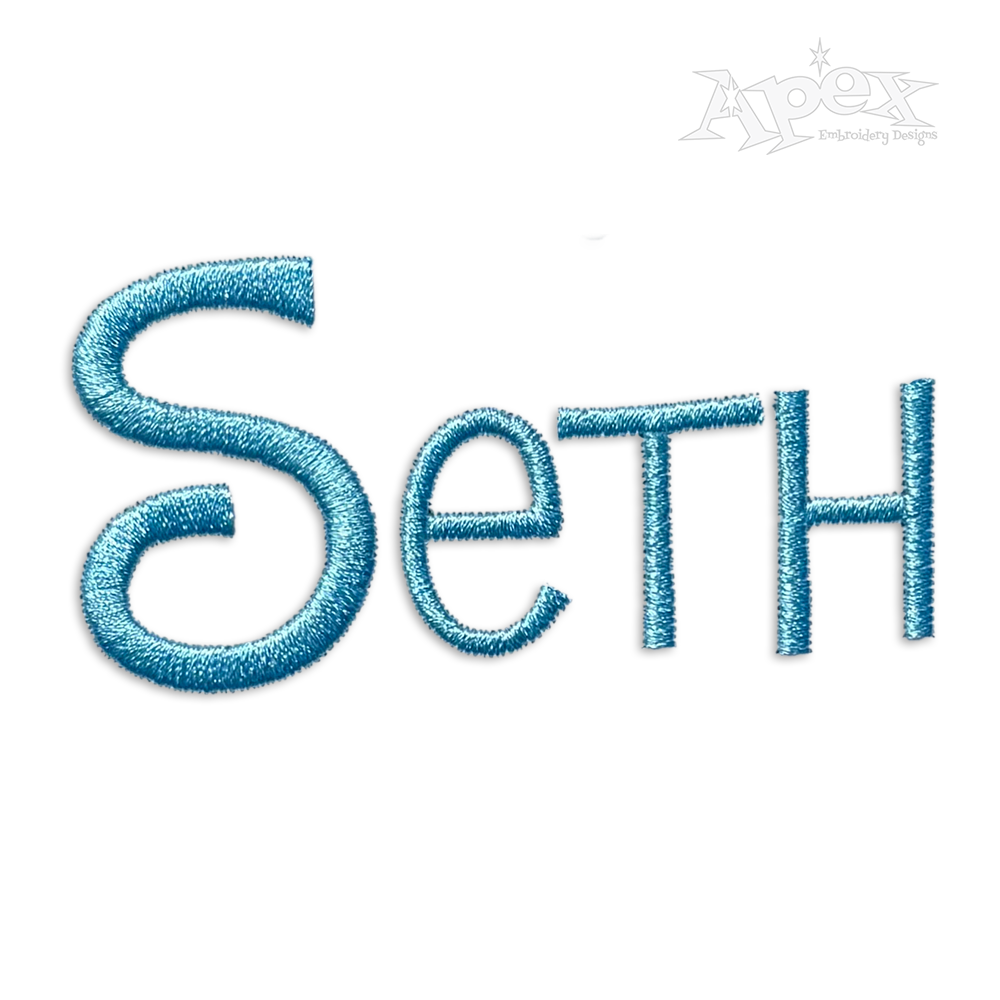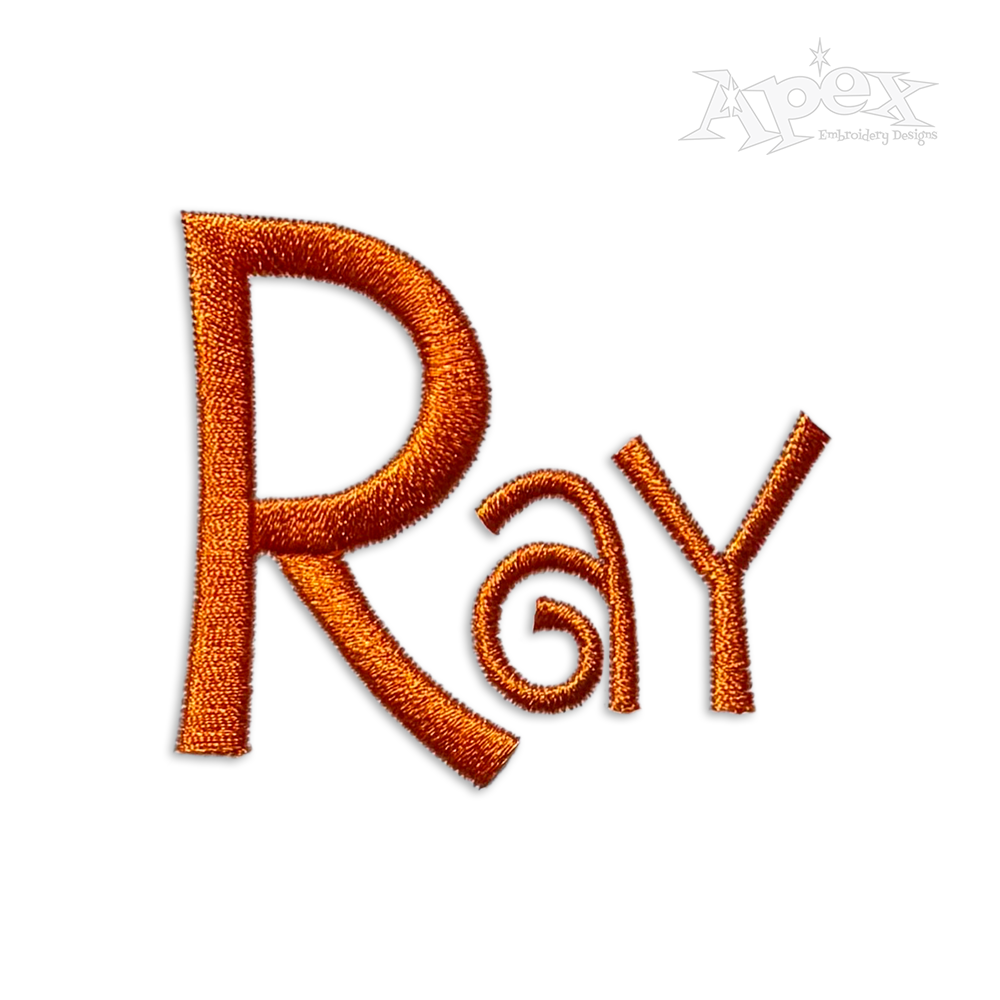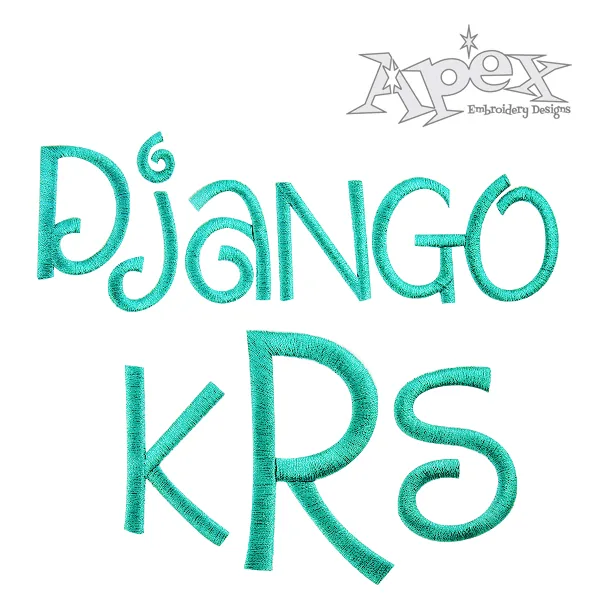
Django Embroidery Font
There is an unapologetic swagger and rhythmic grace woven into the heart of the Django Embroidery Font. Conceived at the crossroads of storied typographic heritage and tailored artisan craft, this alphabet balances bold confidence with clean, sculptural lines. As the needle traces each path, the high-density satin stitches catch the studio light with a rich, luminous sheen, transforming humble woven textiles into distinguished statement pieces. Whether you are crafting personalized gifting collections or curating bespoke resort wear, Django brings a soulful, architectural presence to every stitch out.
Project Ideas for Django Embroidery Font
The distinctive character of Django lends itself seamlessly to both relaxed rustic charm and elevated contemporary luxury. Here are inspired ways to bring these satin letterforms to life:
- Luxury Table Linens: Stitch bold, single-initial monograms on washed linen dinner napkins and runner sets for memorable dinner party staging.
- Heirloom Bedding: Elevate crisp percale or sateen pillow shams with tailored three-letter monograms that radiate understated refinement.
- Bespoke Resort Wear: Adorn linen camp shirts, structured cover-ups, and sun hats with individual initials for an exclusive coastal aesthetic.
- Canvas Totes & Weekend Bags: Create striking contrast by embroidering heavyweight cotton or duck canvas utility bags with the commanding 3-inch size.
- Personalized Gifting: Craft meaningful keepsakes by pairing Django with plush waffle robes, fine flannel blankets, or velvet travel jewelry pouches.
Achieving a professional, balanced monogram begins with thoughtful placement that honors the garment or home textile's silhouette:
- Napkin Corner Diagonals: Angle your monogram at 45 degrees, set 1.5 to 2 inches from the bottom-right corner point for a polished drape when folded.
- Left Chest & Pockets: Align the center of the design approximately 7 to 9 inches down from the shoulder seam and midway between the placket and side seam on button-downs and polos.
- Cuff Accents: Center the 0.5-inch size on the wearer's left cuff, positioned 0.5 to 1 inch above the hemline for quiet, tailored sophistication.
- Heirloom Pillow Centers: Position the 2-inch or 3-inch glyphs precisely in the geometric center of the pillow face to create a grounded visual focal point.
Django Craft & Letterform Details
True embroidery excellence lies beneath the surface in the invisible architecture of stitch direction and pull compensation. Django was intentionally engineered with pure satin columns that contour around every bend and swell, maintaining unbroken thread luster throughout. Each stroke features customized entry and exit points to minimize jump threads, producing clean backsides on sheer linens and double-sided items. The serifs are chiseled with crisp edge anchoring to prevent sinking into textured weaves, while subtle underlay provides reliable foundation and dimension without stiffness. The result is an enduring satin stitch alphabet that stitches out smoothly, crisply, and with breathtaking tactile depth.